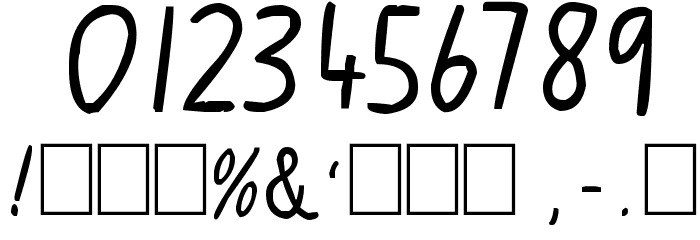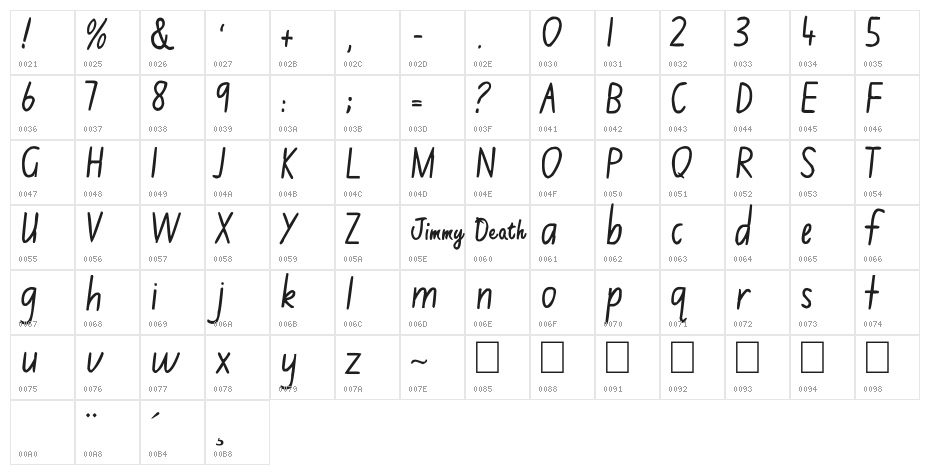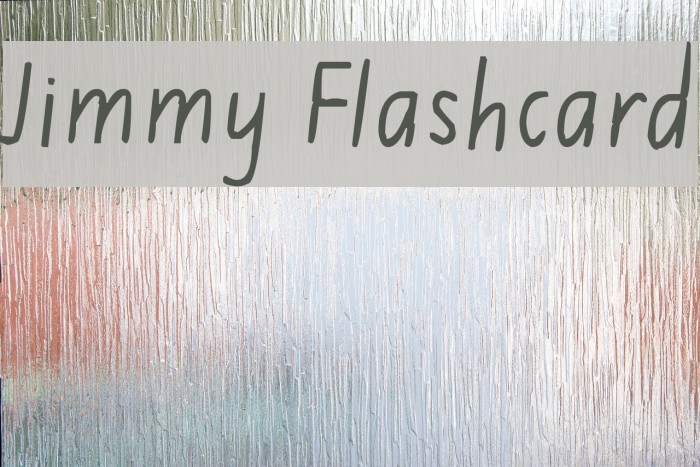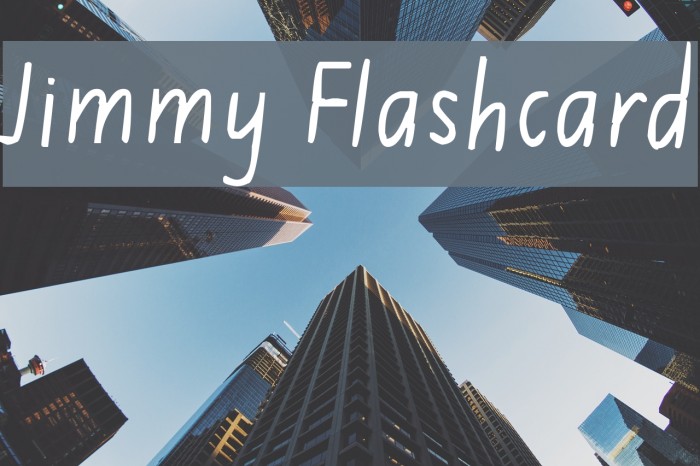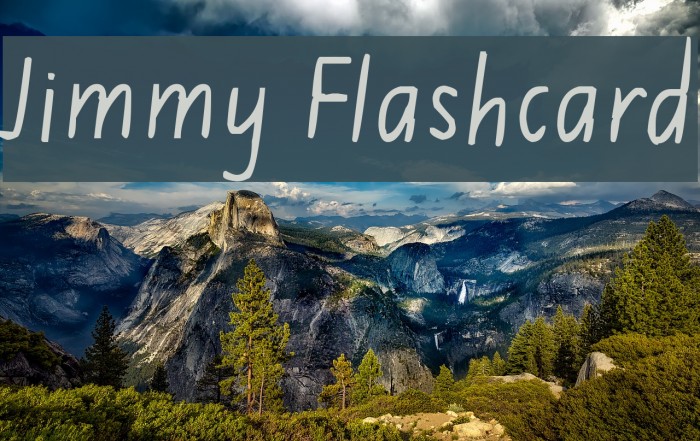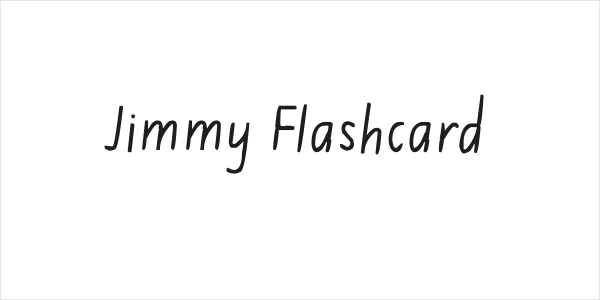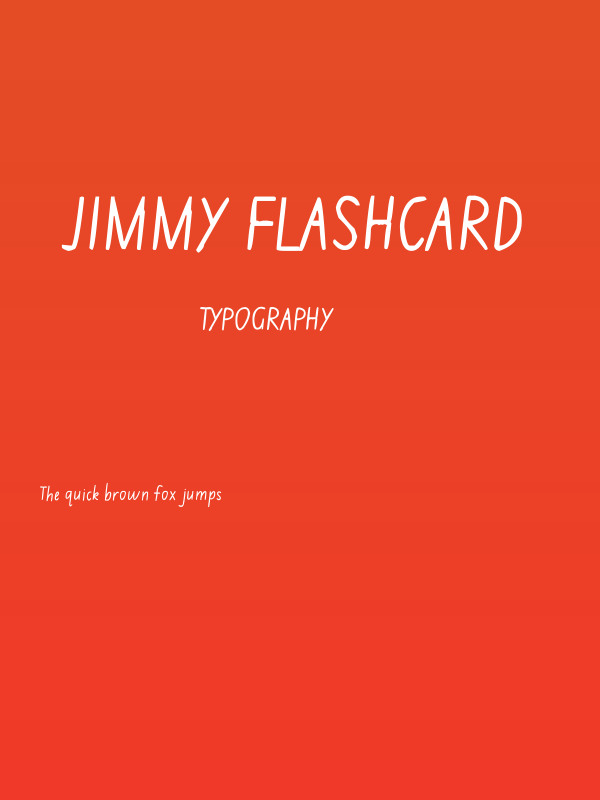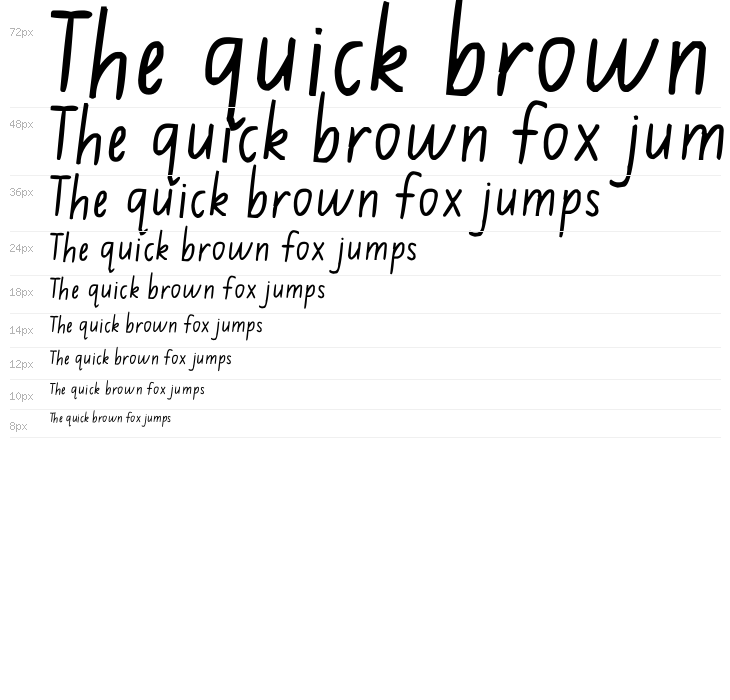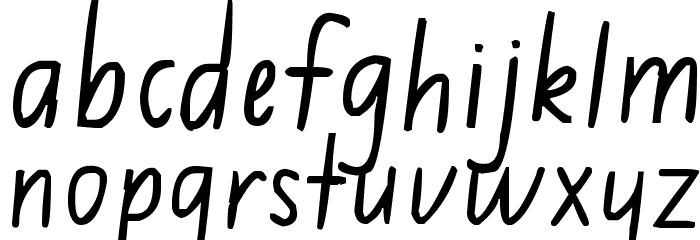
Jimmy Flashcard Font
Jimmy Flashcard Description
This font features a playful and casual handwritten style, characterized by its slightly irregular and organic letterforms. The uppercase letters are tall and narrow, while the lowercase letters maintain a consistent flow with rounded edges. The numbers are clear and legible, matching the overall informal aesthetic. Special characters are included, enhancing its versatility. The font exudes a friendly and approachable vibe, making it suitable for projects that require a personal touch.
| Use Case | Headlines, Informal text, Personal projects |
| Proposed Projects | Ideal for greeting cards, children's books, personal blogs, and informal branding projects. |